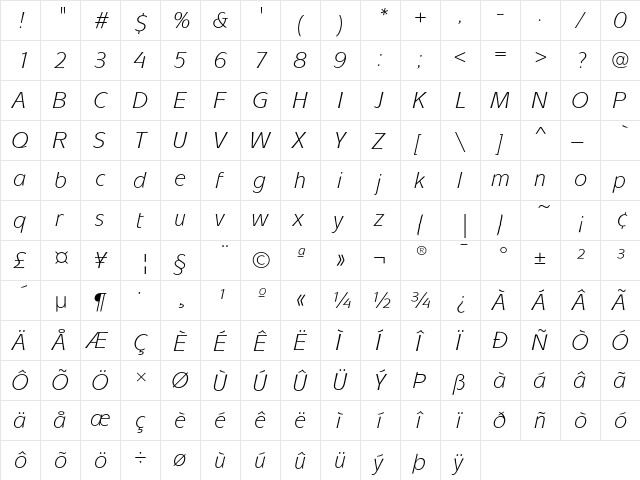
MixageEF BookItalic
Design Context for MixageEF Typeface
MixageEF offers clean, dependable letterforms without strong stylistic allegiance, making it a practical choice for designers who need flexibility. The dynamic lean of this cut emphasises speed and emphasis in any layout.
Pro Tip: Use MixageEF for emphasis, pull quotes, and subheadings where its slanted energy can add rhythm to the layout.